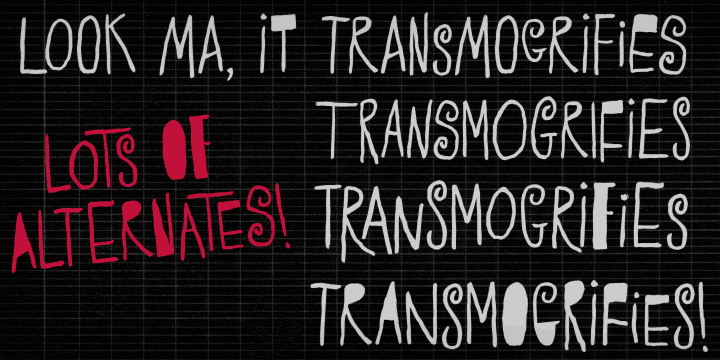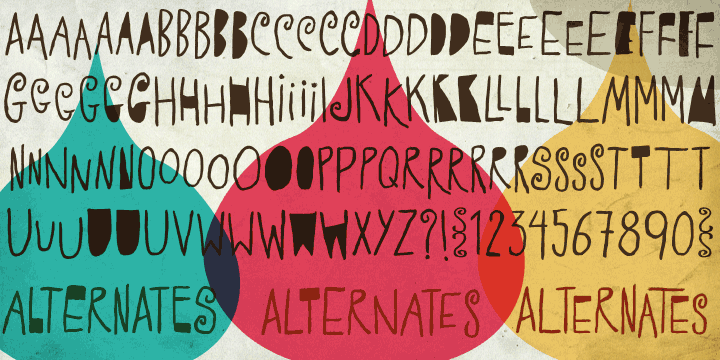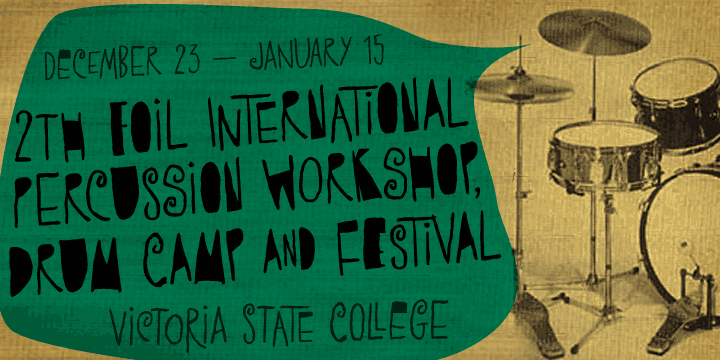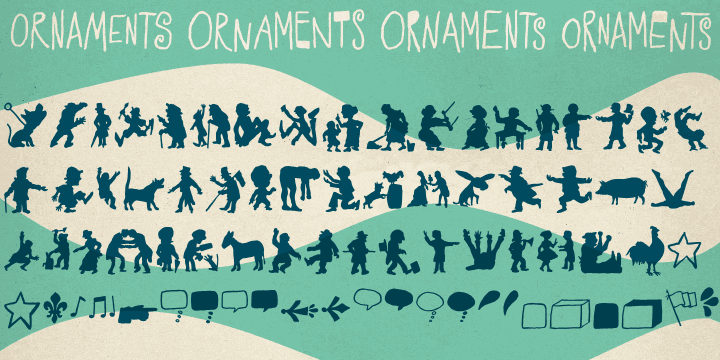
Transmogrifier is a hand display and kids font published by PintassilgoPrints.
Inspired on Cuban posters by the talented and prolific graphic artist Eduardo MuÒoz Bachs, Transmogrifier was hand painted with a thin brush, using loose, fast strokes.
The font is packed with lots of contextual and stylistic alternates that automatically transmogrifies the letters as you type, when using opentype savvy programs. Itís also possible to pick the alternates by hand, setting the text the way you like better. The choice is yours, and there are plenty of alternates to choose from, helping to create original handlettered-looking designs.
The font also brings a set of rough pictures based in charcoal sketches from Shniedewend & Lee Company, 1888. These were handpainted with the same thin brush as the letters, making it a natural complement.